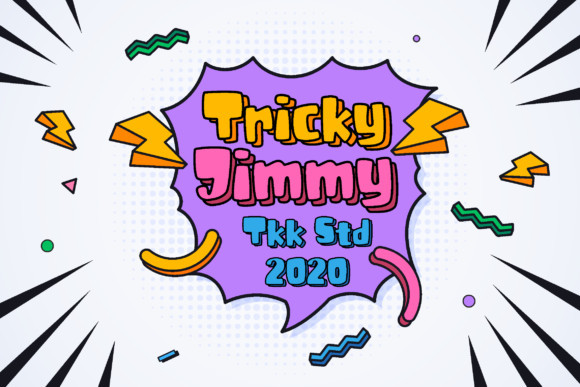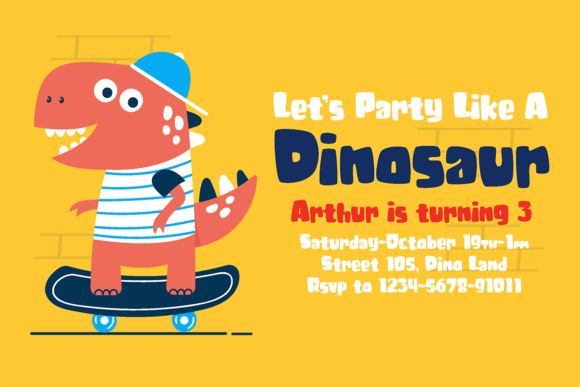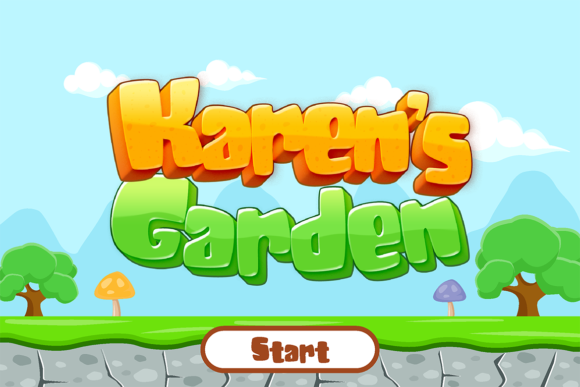
Tricky Jimmy Font
Tricky Jimmy is a sweet and fun display font. It features a cartoon like style, and as a result, it will be the perfect choice for each of your children related designs!